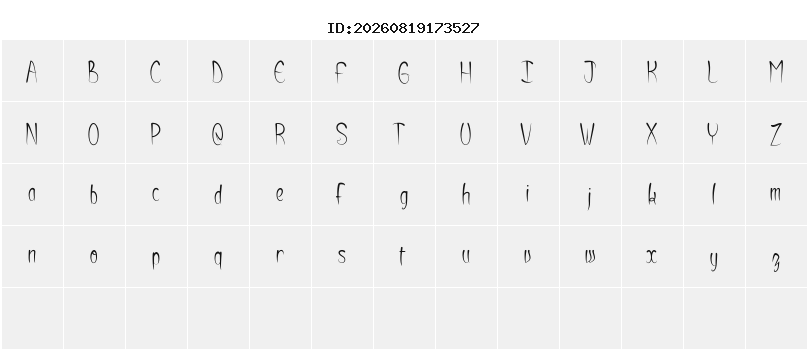
Shuriken dance like a Tiger Preview
• Font Name: Shuriken dance like a Tiger
• Font ID: dcoxyMedinaGregory: Shuriken dance like a Tiger: 2014
• Full Font Name: Shuriken dance like a Tiger
• PostScript Name: ShurikendancelikeaTiger
• Designer: dcoxy Medina Gregory
• Manufacturer: dcoxy Medina Gregory
About Shuriken dance like a Tiger.ttf
Shuriken dance like a Tiger.ttf is a modern, elegant sans-serif font designed for ultimate readability and visual harmony. Perfect for branding, headlines, web design, and print materials.